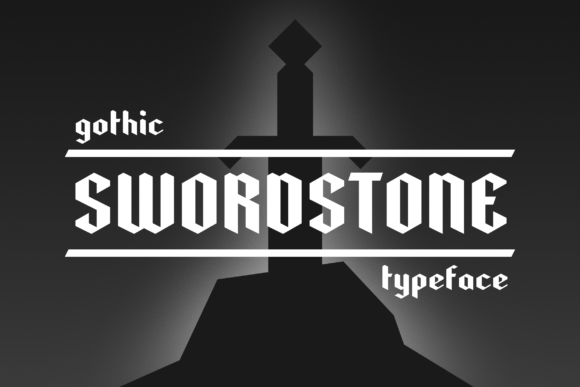
Buckle up for a typographic journey like no other, where creativity and enchantment converge. Introducing Swordstone Font, the ultimate display font family, meticulously crafted by rudenkoarts to ignite your imagination and transform your designs into captivating masterpieces.
Swordstone isn't just a font; it's a portal into a realm of visual allure. Its modern yet whimsical style dances across your screens, captivating audiences with its enchanting aura. Whether you're a seasoned designer or a novice adventurer, Swordstone will guide you through a boundless realm of creativity, empowering you to create designs that resonate with your audience.
Immerse yourself in the magic of Swordstone's meticulously crafted characters, each a testament to the font's unwavering attention to detail. Every curve, every stroke, every serif is designed to evoke a sense of wonder, drawing your audience into a world where imagination reigns supreme. With Swordstone as your creative companion, your designs will transcend the ordinary and bloom into extraordinary realms of visual storytelling.
Unleash the untapped potential of your web advertising campaigns with Swordstone. Its captivating aura commands attention, turning your digital spaces into captivating landscapes where your brand's message shines brighter than ever before. Swordstone's captivating presence will leave an unforgettable mark on your audience, ensuring that your brand's message resonates with them long after the last pixel fades from view.
Swordstone isn't merely a font; it's an experience. A journey through a realm of visual enchantment where your creativity knows no bounds. Embrace the power of Swordstone and embark on a typographic odyssey that will leave you spellbound.